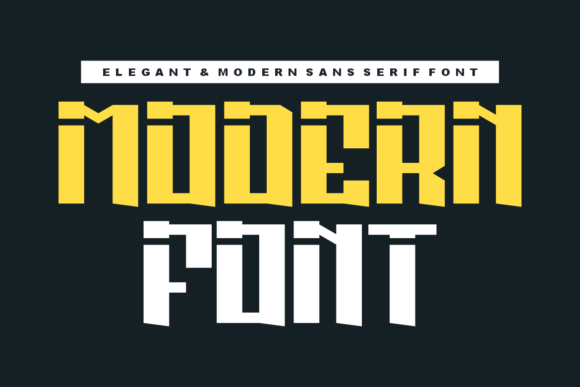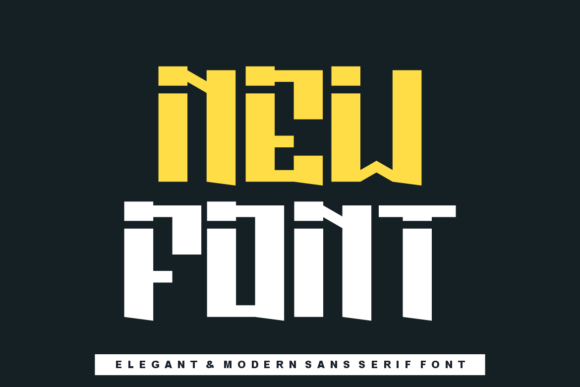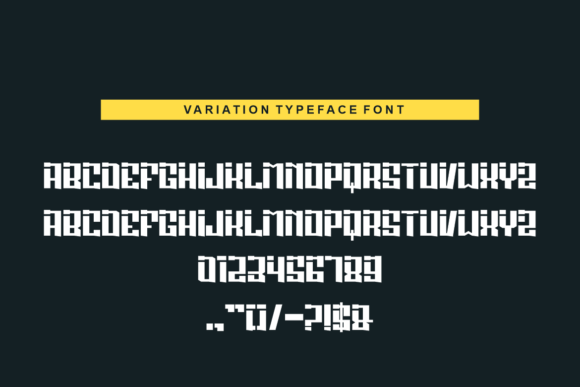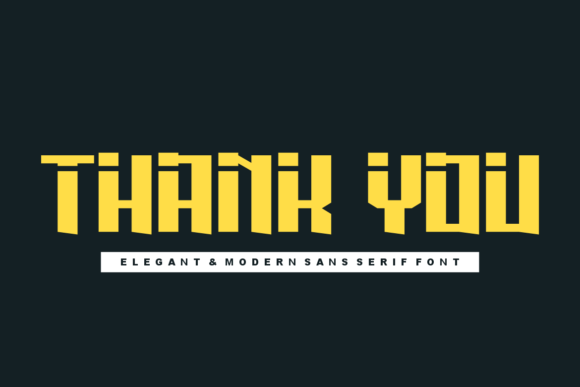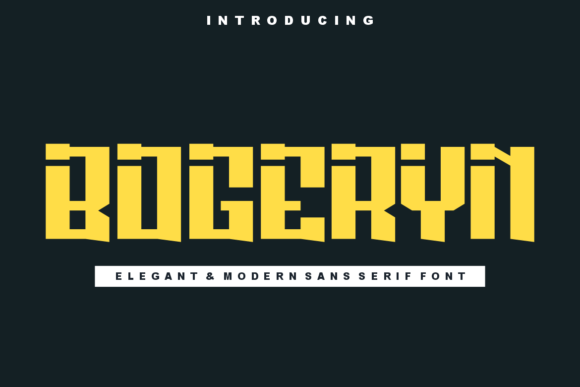
Bogeryn Font: The Modern and Bold Display Font for All Occasions
In the world of typography, fonts play a crucial role in conveying messages, expressing emotions, and adding personality to designs. For designers, crafters, and digital artists, finding the perfect font can be a daunting task. However, if you’re looking for a modern and bold display font that can elevate your creations, look no further than Bogeryn Font. In this article, we’ll explore the features, benefits, and uses of Bogeryn Font, and why it’s about to become your new favorite go-to font.
What is Bogeryn Font?
Bogeryn Font is a contemporary and striking display font designed to make a statement. Its unique blend of modernity and boldness makes it perfect for a wide range of applications, from digital designs and presentations to crafts, greeting cards, and more. Whether you’re a professional designer or a DIY enthusiast, Bogeryn Font is an excellent addition to your typography arsenal.
Key Features of Bogeryn Font
So, what sets Bogeryn Font apart from other fonts? Here are some of its key features:
• Modern and Bold: Bogeryn Font boasts a sleek and contemporary design, making it perfect for those who want to add a touch of sophistication to their creations.
• Versatile: This font is incredibly versatile and can be used for various projects, including digital designs, crafts, presentations, and more.
• Highly Legible: Despite its boldness, Bogeryn Font remains highly legible, ensuring that your message is conveyed clearly and effectively.
Uses of Bogeryn Font
Bogeryn Font is an incredibly versatile font that can be used in a variety of contexts. Here are some ideas to get you started:
• Digital Designs: Use Bogeryn Font to add a touch of modernity to your social media graphics, blog posts, and website headers.
• Crafts: Bogeryn Font is perfect for crafters who want to add a personal touch to their projects, such as handmade cards, scrapbooking, and DIY decorations.
• Presentations: Make your presentations stand out with Bogeryn Font, which is sure to grab the attention of your audience.
• Greeting Cards: Create stunning greeting cards for special occasions, such as birthdays, weddings, and holidays, using Bogeryn Font.
Why Choose Bogeryn Font?
With so many fonts available, why should you choose Bogeryn Font? Here are some compelling reasons:
• Unique and Eye-Catching: Bogeryn Font is a one-of-a-kind font that will make your designs stand out from the crowd.
• Time-Saving: With Bogeryn Font, you can create stunning designs in no time, thanks to its ease of use and versatility.
• Professional-Grade: Bogeryn Font is designed to meet the needs of professional designers and crafters, ensuring that your creations look polished and professional.
In conclusion, Bogeryn Font is an exceptional modern and bold display font that is sure to become your new favorite go-to font. Its versatility, legibility, and ease of use make it perfect for a wide range of applications, from digital designs and crafts to presentations and greeting cards. Whether you’re a designer, crafter, or digital artist, Bogeryn Font is an excellent addition to your typography collection. So why wait? Give Bogeryn Font a try today and take your designs to the next level!